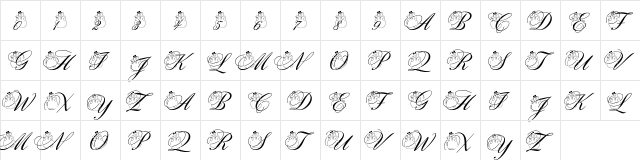
pf_snowman citadel Font Preview
pf_snowman citadel pf_snowman citadel
pf_snowman citadel Font Details
| Style | pf_snowman citadel |
| Designer | Planck Foam |
Design Context for pf_snowman citadel Typeface
pf_snowman citadel is a composed and adaptable typeface that performs quietly and consistently across a wide range of design contexts.